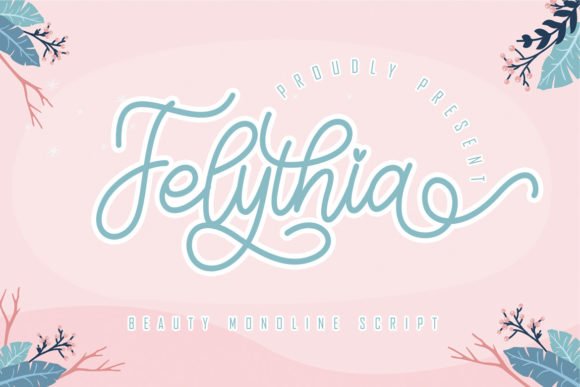
Adding a Touch of Luxury to Your Designs
Have you ever sat down at your desk, stared at a blank page, and suddenly felt the urge to create something truly special? The spark of inspiration hits, and before you know it, you’re swept up in a whirlwind of imagination and creativity. For designers, moments like these are what make all the hard work worth it – and the right tools can make all the difference.
Enter the Felythia Font, a beautiful light handwritten font that adds a touch of luxury to any design project. With its unique feel and stunning impact, this font is sure to elevate your work to new heights. Whether you’re working on a high-end branding project or a romantic wedding invitation, Felythia Font is the perfect choice to give your designs a high-end look.
What sets Felythia Font apart is its PUA encoding, which makes it easy to access all the amazing glyphs and ligatures at your fingertips. This means you can get creative with your designs without any hassle, and focus on bringing your vision to life.
Felythia Font Key Features
- Font Style: Script, Handwritten
- Unique Characteristics: Elegant, cursive design with a touch of whimsy, suitable for titles, headings, and short paragraphs.
Felythia Font Review
I recently had the chance to work with the Felythia font, and I must say it’s a mixed bag. Here are my thoughts on what works and what doesn’t.
- ✨ Unique character: The Felythia font has a distinct, whimsical feel to it that can add a touch of personality to your designs.
- ✨ High-quality rendering: The font renders beautifully, with smooth lines and clear typography.
- ✨ Good legibility: Despite its decorative nature, the font is still easy to read, even at smaller sizes.
- ⚠️ Limited versatility: While the Felythia font is great for certain projects, it may not be the best choice for more formal or professional designs.
- ⚠️ Limited font sizes: The font starts to look a bit rough when scaled up to larger sizes.
- ⚠️ Limited language support: The font may not include support for non-Latin scripts or languages.
The Felythia font is a great addition to any designer’s toolkit, but it’s not a one-size-fits-all solution. If you’re looking for a unique, decorative font for a specific project, this might be the perfect choice. However, if you need a more versatile or professional font, you may want to look elsewhere.
Tips for Getting the Most Out of Felythia
1. Use Felythia in combination with other elegant fonts for a unique and sophisticated look.
2. Experiment with different font sizes and styles to create visual hierarchy and emphasis.
3. Use Felythia for titles, headings, and subheadings to create a cohesive and professional design.
Felythia is suitable for various design projects, including:
- Book covers and interior design
Alternatives to Felythia Font
Playfair Display is a high-end serif font ideal for luxury brands, high-end fashion, and elegant designs. It’s more decorative than Felythia Font and features intricate details, making it suitable for titles and headings.
Comparison: While Felythia Font is more minimalist, Playfair Display is ornate and elaborate, making it a better choice for projects requiring sophistication and luxury feel.
Great Vibes is a modern script font perfect for creating a friendly, approachable atmosphere. It’s more casual than Felythia Font and features a relaxed, handwritten feel, making it suitable for blogs, magazines, and social media platforms.
Comparison: While Felythia Font is clean and minimalist, Great Vibes is more expressive and cursive, making it a better choice for projects requiring a personal touch and a conversational tone.